Letterform Archive Pop-Up Exhibition Curated by Debbie Millman Celebrates a Groundbreaking Book Design
Tristram Shandy, The First Modern Book is on view in the our Reading Room gallery until April 26, 2026.
Letterform Archive is honored to welcome author, artist, educator, designer, and podcast pioneer Debbie Millman as a guest curator for our latest reading room exhibition. Tristram Shandy, The First Modern Book showcases a book that, in many ways, feels astonishingly modern—even though it was first published 266 years ago in 1760.
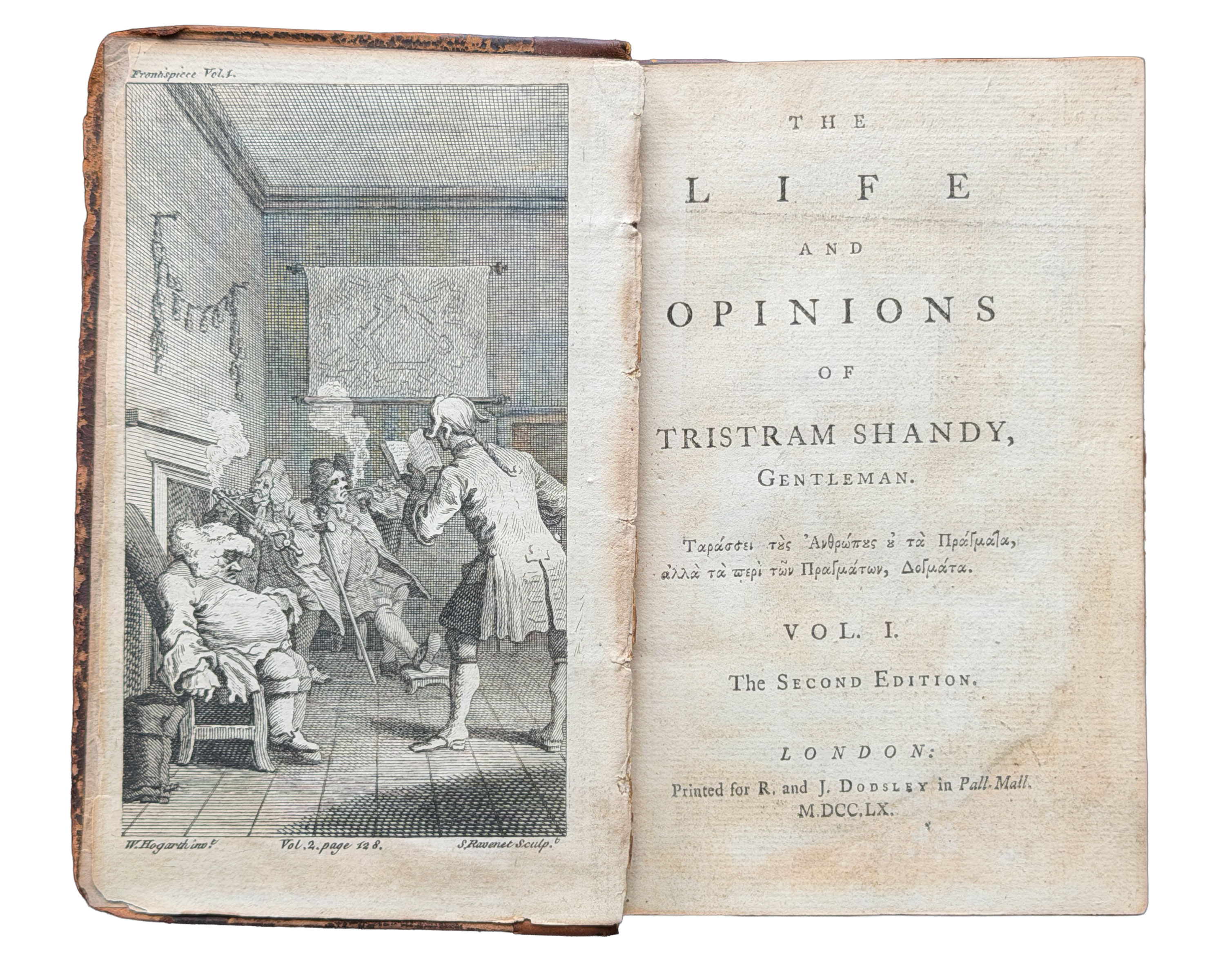
The Life and Opinions of Tristram Shandy, Gentleman, by Laurence Sterne is one of the most original, inventive books ever created. Sterne didn’t just tell a story—he treated the book itself as a playground. The pages reveal a story that twists, turns and digresses. Entire chapters are left blank. One page is printed completely black, as it is in mourning. Another is marbled.
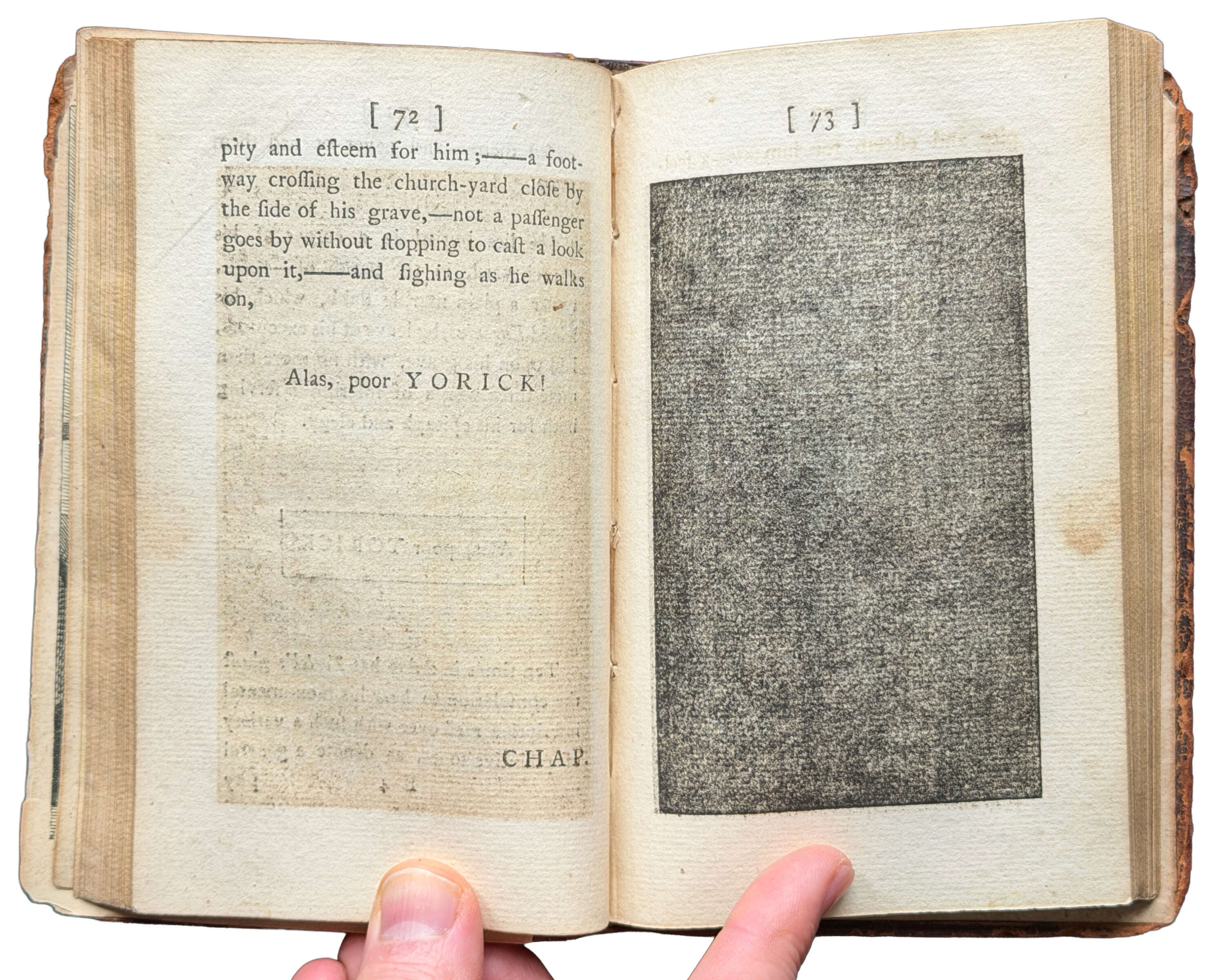
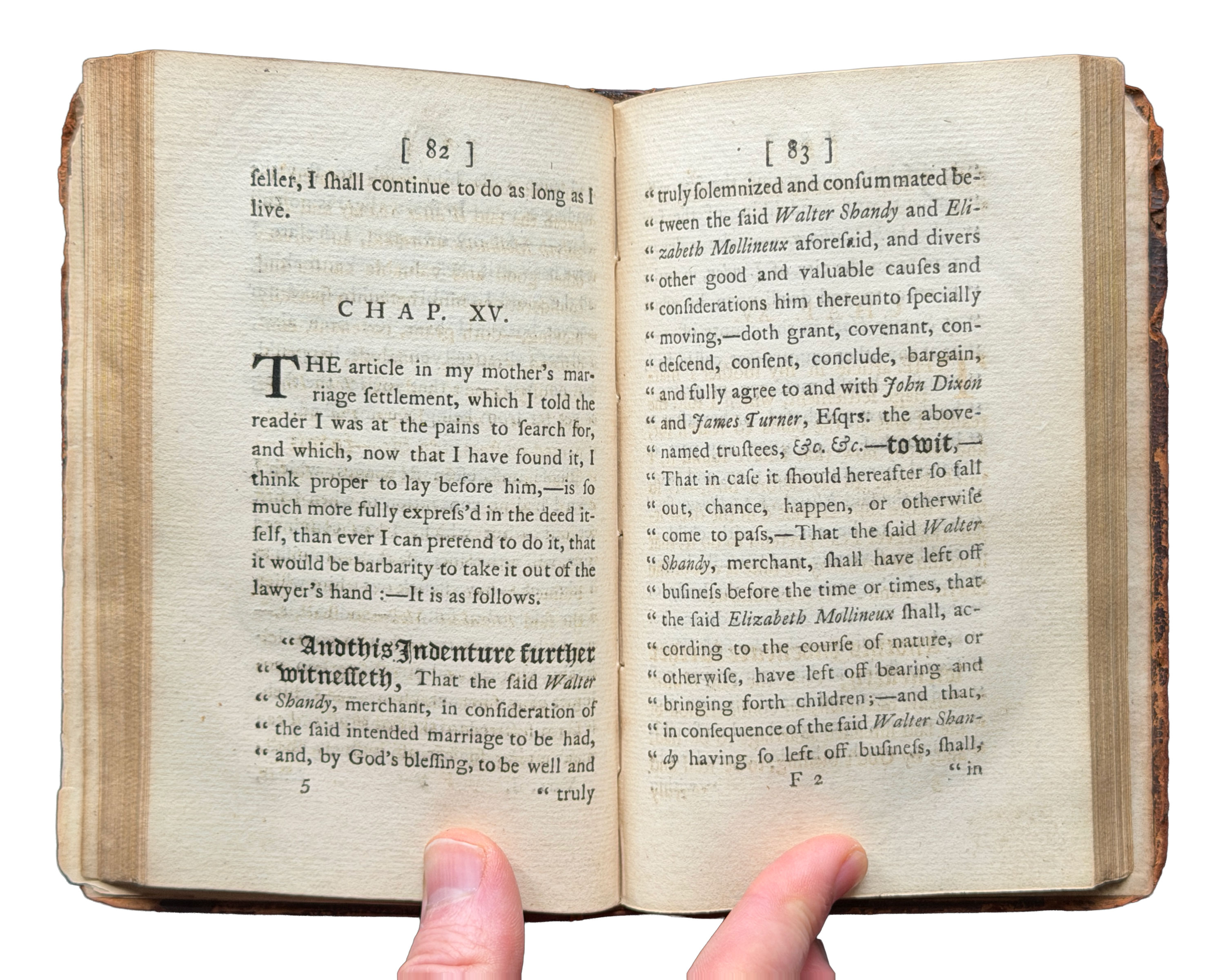
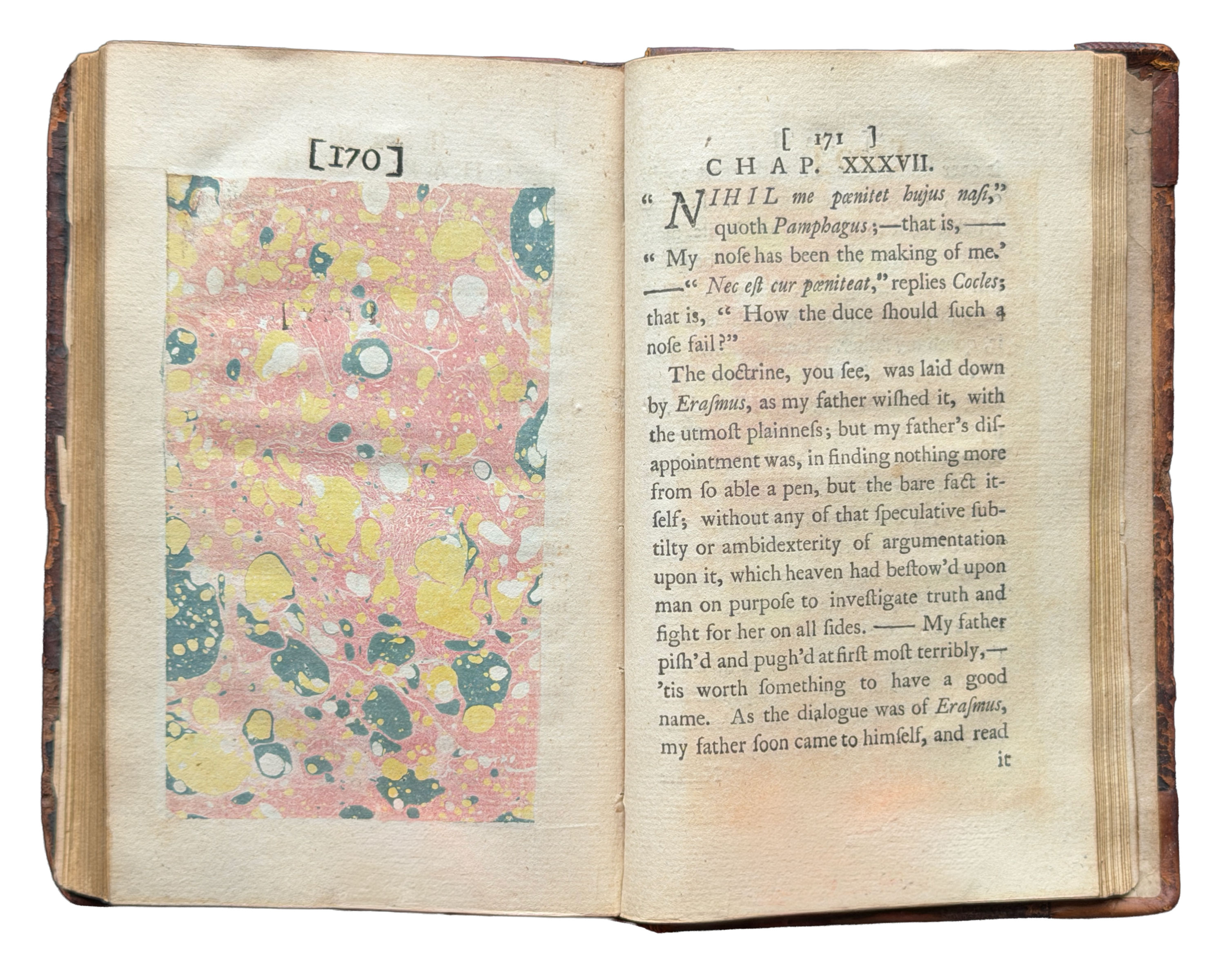
And at one moment, Sterne invites the reader to imagine a character by leaving a page for them to fill in themselves. The language includes graphic gestures that attempt to diagram the wild, looping path of the story itself. What makes Tristram Shandy so extraordinary is that it anticipated so many ideas we think of as modern: experimental typography, nonlinear storytelling, reader participation, and visual narrative. It is truly a precursor to the experimental books that imaginative designers and artists would begin making centuries later.
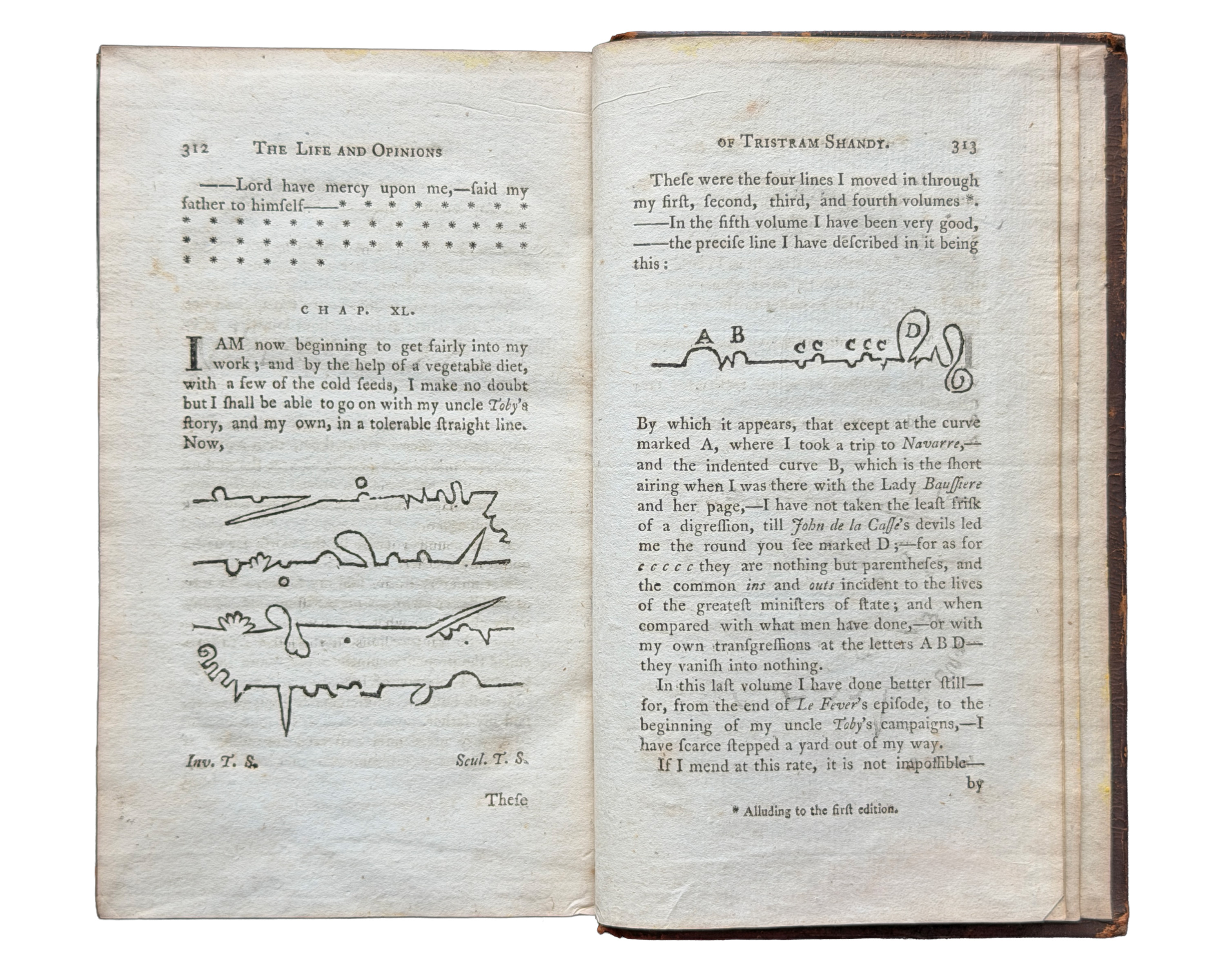
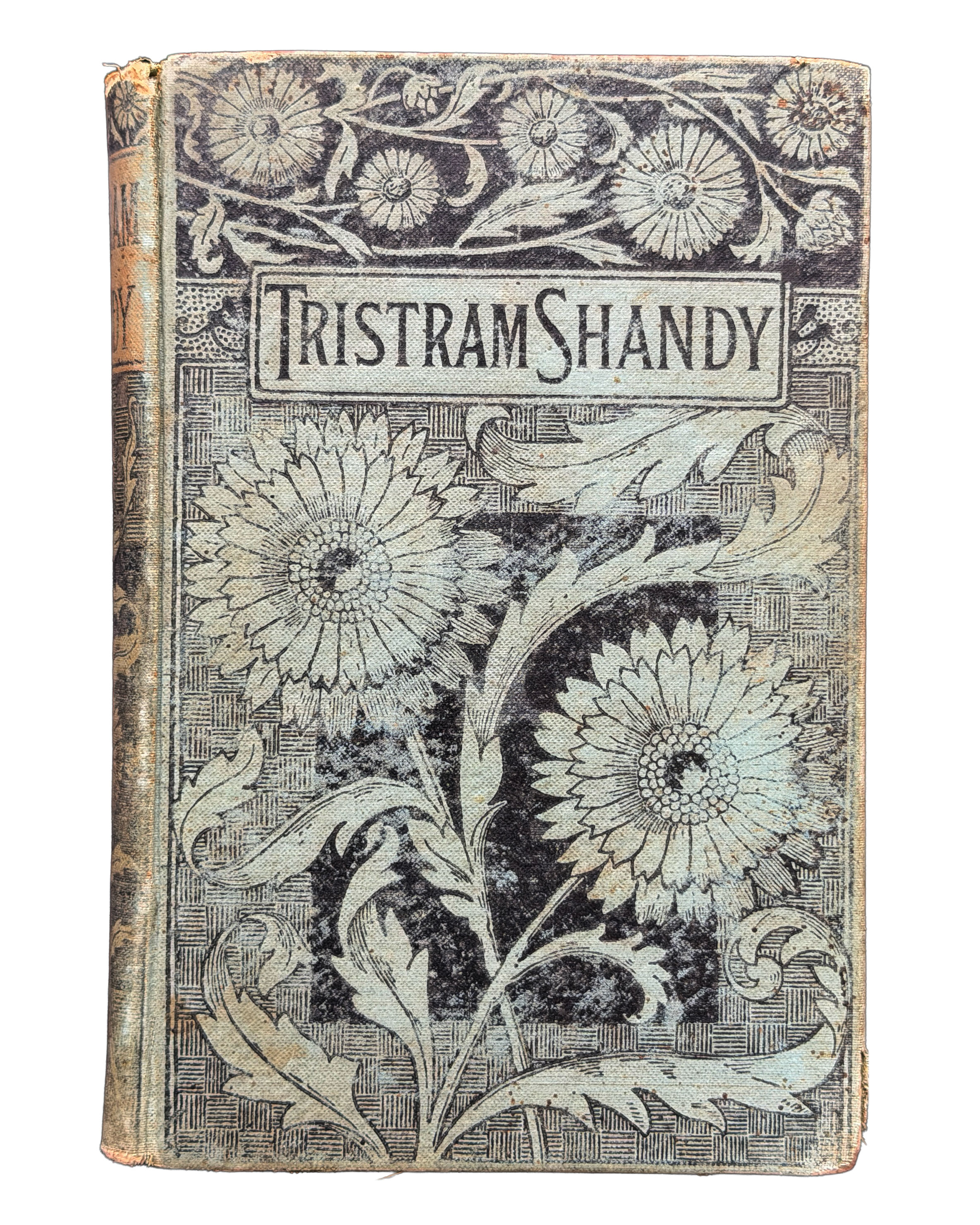
This exhibition brings together items from the collections of Debbie Millman and Letterform Archive. On view are several copies from the original publisher alongside other editions, including contemporary interpretations by Edward McKnight Kauffer, Milton Glaser, and John Baldessari. They show us that the spirit of experimentation in publishing has a much longer history than we sometimes realize. It’s a reminder that the spirit of experimentation in books—and in design itself—has always been with us, and why preserving it matters so much.